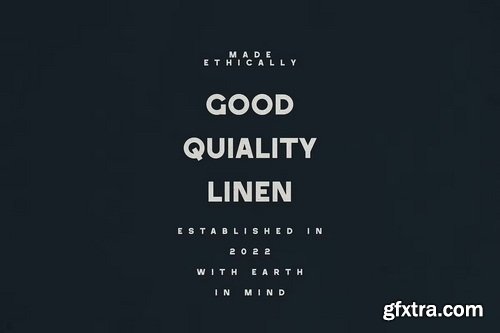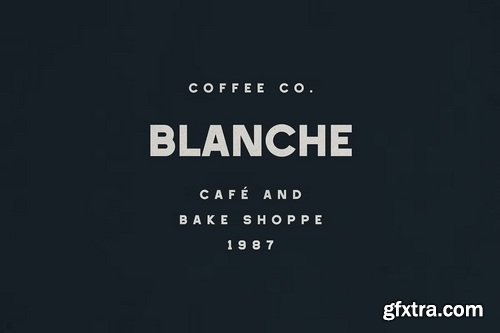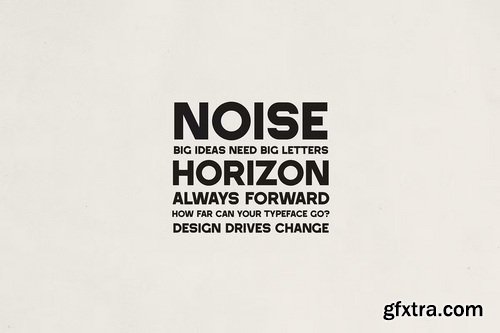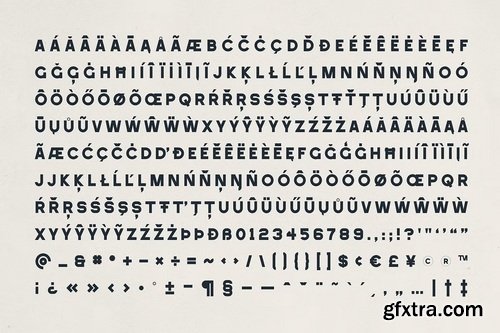
CreativeMarket - Velto Modern Bold Sans Serif Font
- Introducing Velto, a modern sans serif display font designed for bold branding, clean editorial layouts, and impactful visual communication. With sharp geometric shapes, balanced proportions, and confident character design, Velto delivers a strong contemporary aesthetic perfect for logos, headlines, posters, fashion labels, packaging, and social media graphics. Whether you're creating a minimalist identity, cinematic titles, or a trendy apparel label, Velto adapts seamlessly.